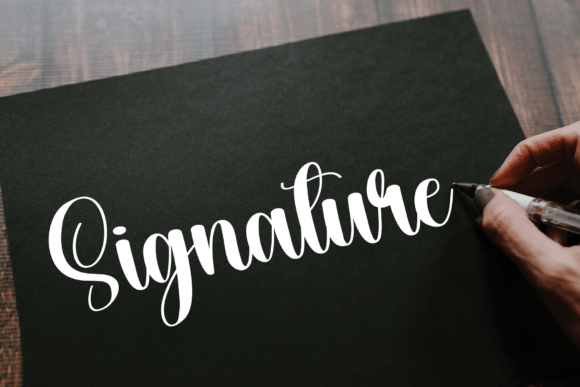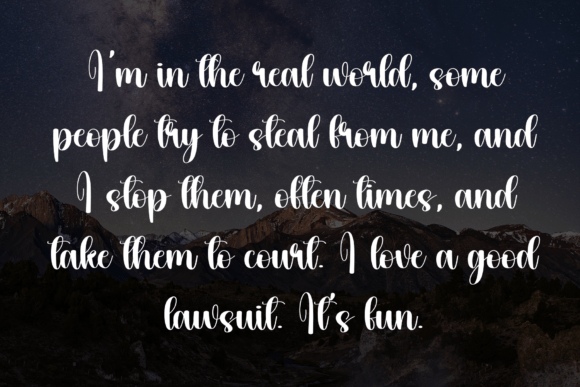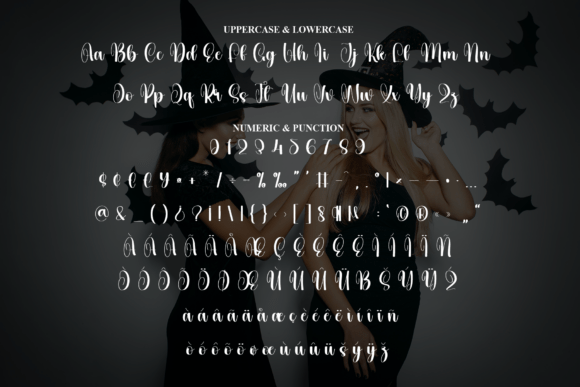
Unleash Your Creativity with the Bestie Witches Font
Have you ever sat down with a blank sheet of paper, a cup of coffee, and let your imagination run wild? That’s exactly where the magic happens – in the moment when creativity takes over, and the possibilities seem endless. For designers, this feeling is a familiar sensation, and the right font can make all the difference. That’s where the Bestie Witches Font comes in – a stylish script font that exudes artistic flair and contemporary elegance.
This beautiful font features fluid brush strokes, dynamic curves, and expressive letterforms that capture the essence of hand-painted calligraphy with a modern twist. Whether you’re designing logos, invitations, packaging, or social media graphics, the Bestie Witches Font adds a creative and sophisticated touch that’s hard to resist. Its natural flow and vibrant character deliver both visual impact and versatility, making it a valuable asset for any designer looking to elevate their designs.
Bestie Witches Font Key Features
- Font Family: A whimsical, handwritten font designed to evoke a sense of friendship and magic.
- Character Count: The font includes 250+ characters, including uppercase and lowercase letters, numbers, and punctuation marks.
- Unique Characteristics: The Bestie Witches Font features swashes, ligatures, and alternate characters to add a touch of personality to your designs.
Designer Review: Bestie Witches Font
I recently had the chance to play around with the Bestie Witches Font, and I have to say, it’s a unique and interesting addition to any design project. ✨ The font’s quirky, cursive style is perfect for adding a touch of whimsy to titles, headings, or even entire paragraphs. The way the letters seem to dance across the page adds a sense of playfulness and personality to any design.
One of the things I appreciate most about Bestie Witches Font is its versatility. ✨ It can be used in a variety of contexts, from children’s book illustrations to social media graphics, and it always seems to fit right in. The font also comes in a range of styles and weights, making it easy to customize and adapt to different design needs.
- ⚠️ The font may not be the best choice for formal or professional designs, as its playful style may come across as unprofessional.
- ⚠️ Some of the letters may be difficult to read at smaller font sizes, particularly for those with vision impairments.
Overall, I think Bestie Witches Font is a great addition to any designer’s toolkit. While it may have some limitations, its unique style and versatility make it a valuable asset for any design project that requires a touch of whimsy and personality.
Getting the Most Out of the Bestie Witches Font
For optimal results, use the Bestie Witches Font in combination with bold, italic, or underline effects to add emphasis to your text.
The Bestie Witches Font is ideal for:
- Magical or mystical-themed designs.
- Whimsical or playful branding.
- Spooky or Halloween-themed projects.
Alternative Fonts to Bestie Witches Font
The Great Vibes font is a modern, elegant script font perfect for creating a whimsical and magical atmosphere. It is ideal for use in invitations, greeting cards, and other design elements that require a touch of sophistication and charm. Compared to Bestie Witches Font, Great Vibes has a more refined and polished look, making it suitable for a wider range of design projects.
The Carolyna Pro font is a beautiful, handwritten font with a mix of elegance and playfulness. It is ideal for use in designs that require a touch of personality and whimsy, such as branding, social media graphics, and advertising materials. Compared to Bestie Witches Font, Carolyna Pro has a more versatile and adaptable design, making it suitable for a variety of design projects and styles.